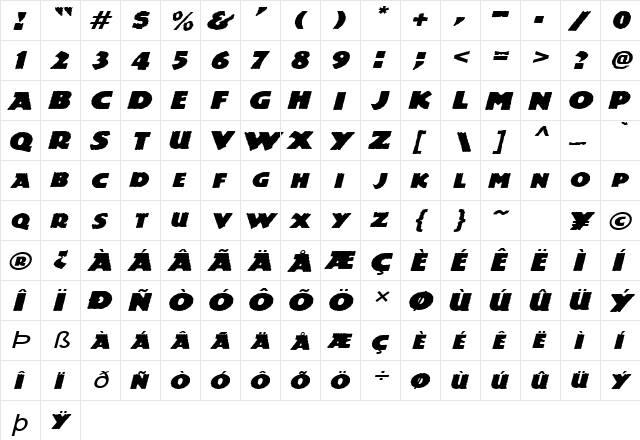
DinosauriaExtended Italic
Design Context for DinosauriaExtended Typeface
DinosauriaExtended is a composed and adaptable typeface that performs quietly and consistently across a wide range of design contexts. The slanted form adds forward momentum and visual energy.
Pro Tip: Try DinosauriaExtended for annotation and caption copy alongside an upright companion — the contrast in angle creates a dynamic but ordered typographic system.